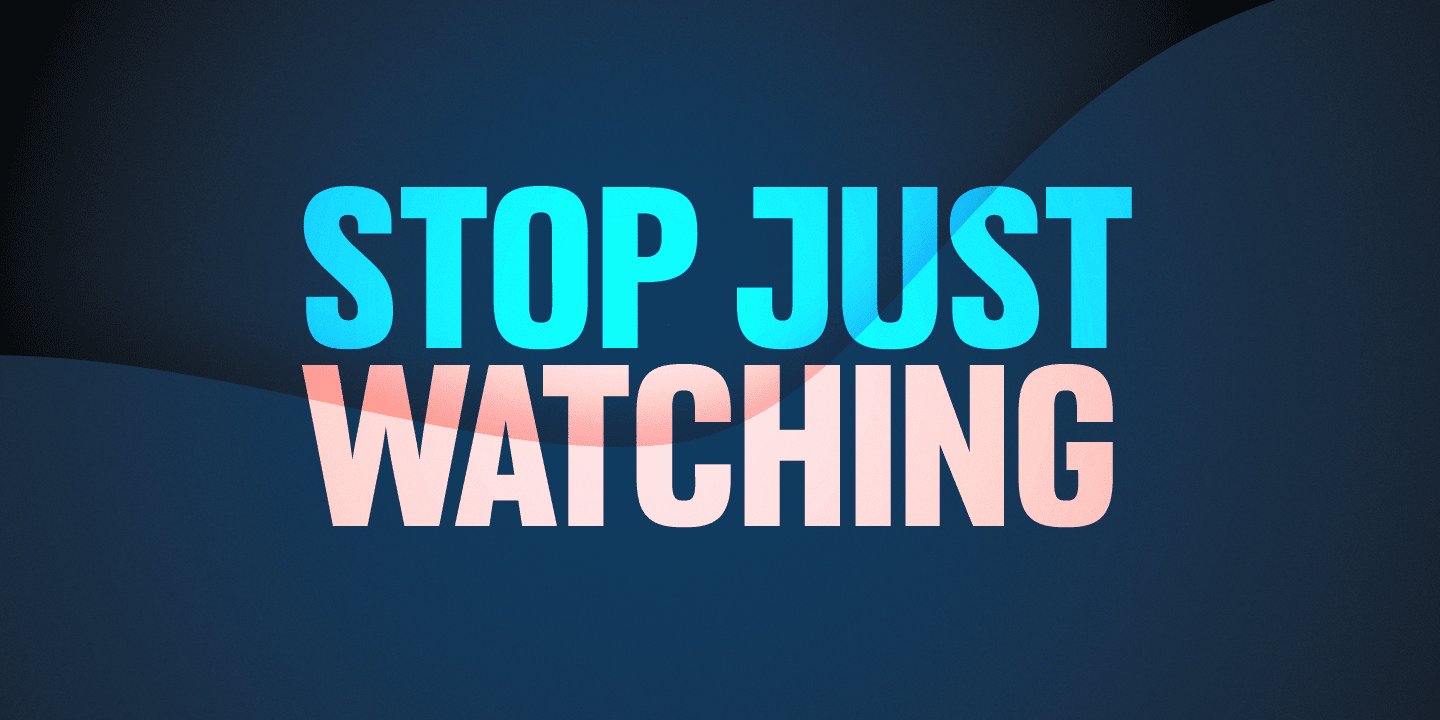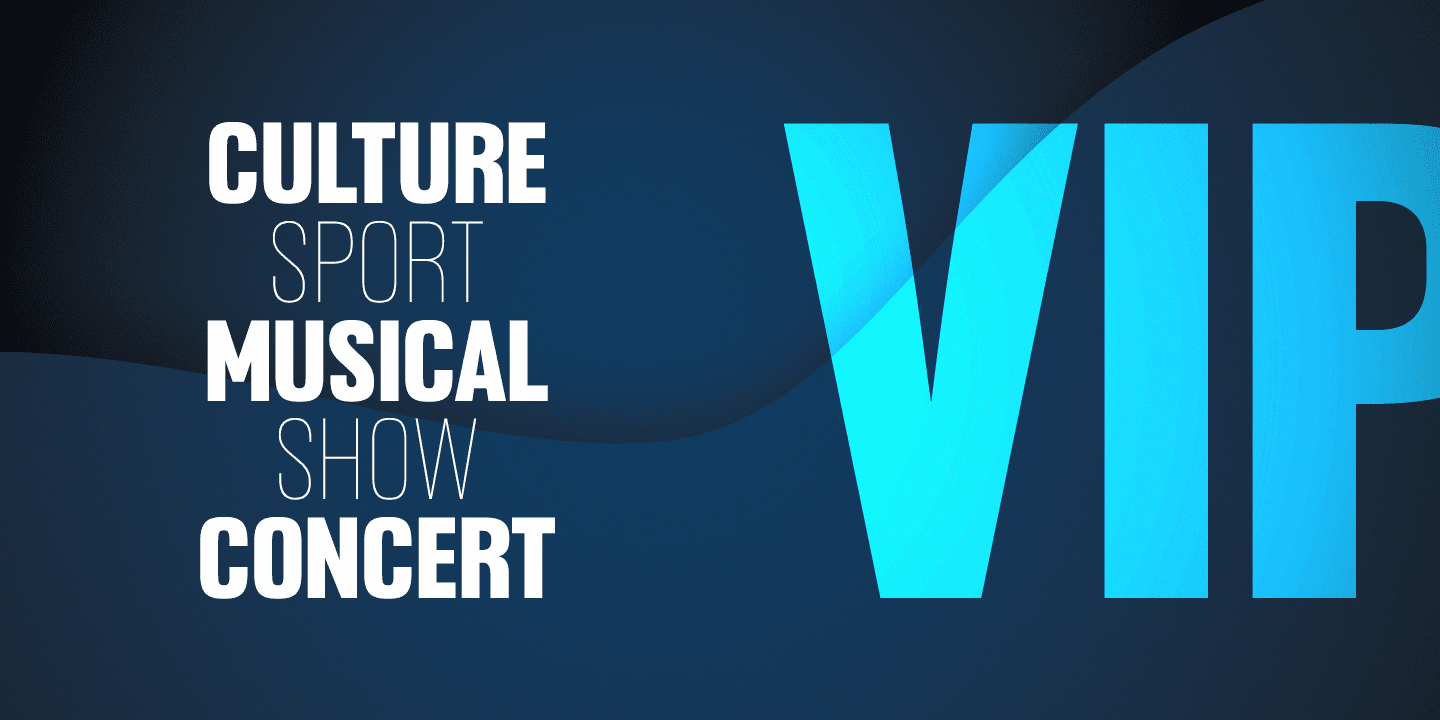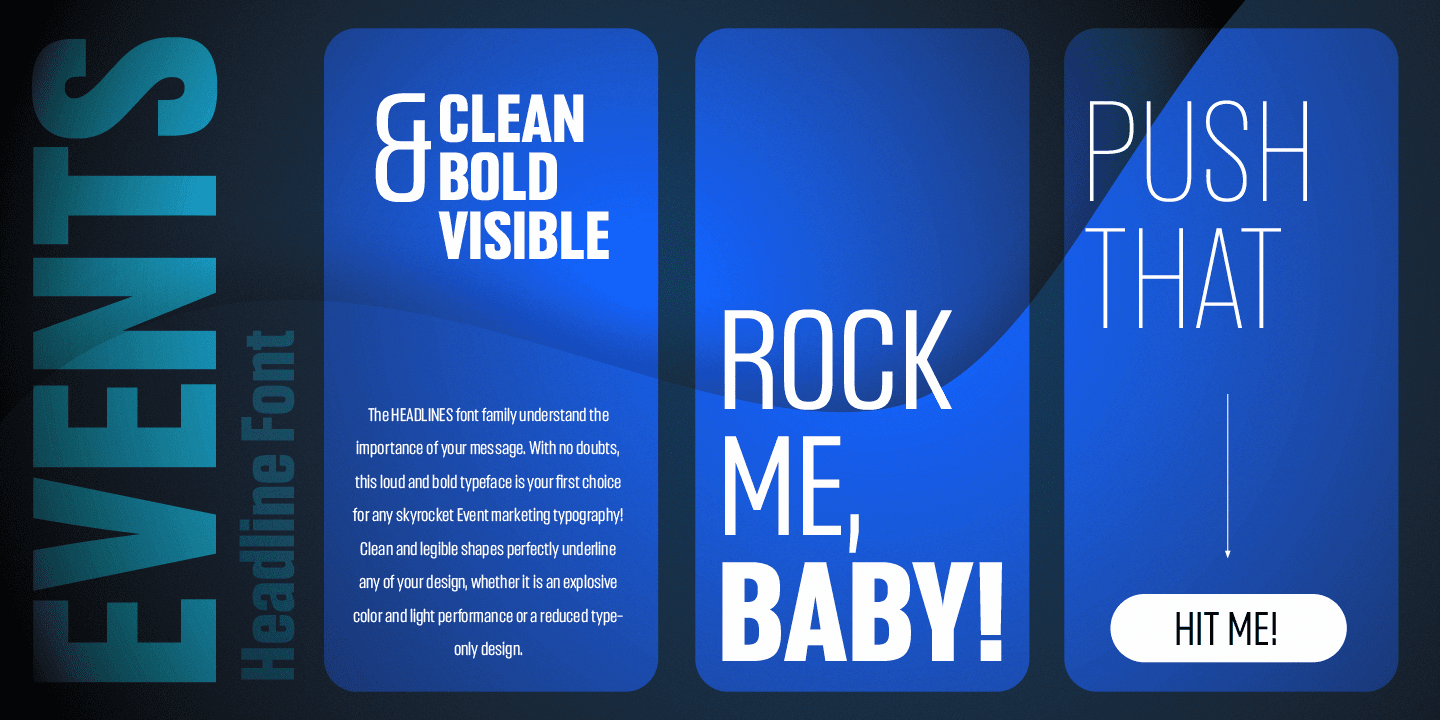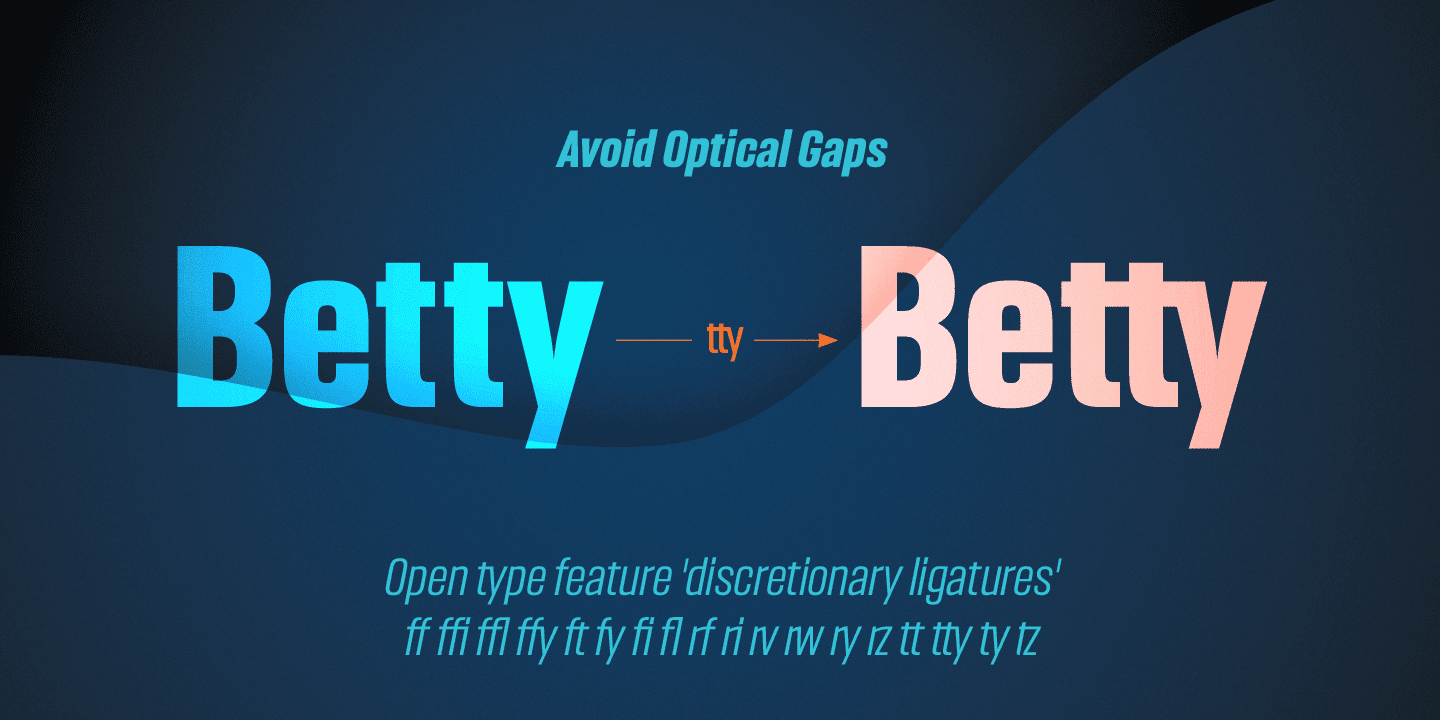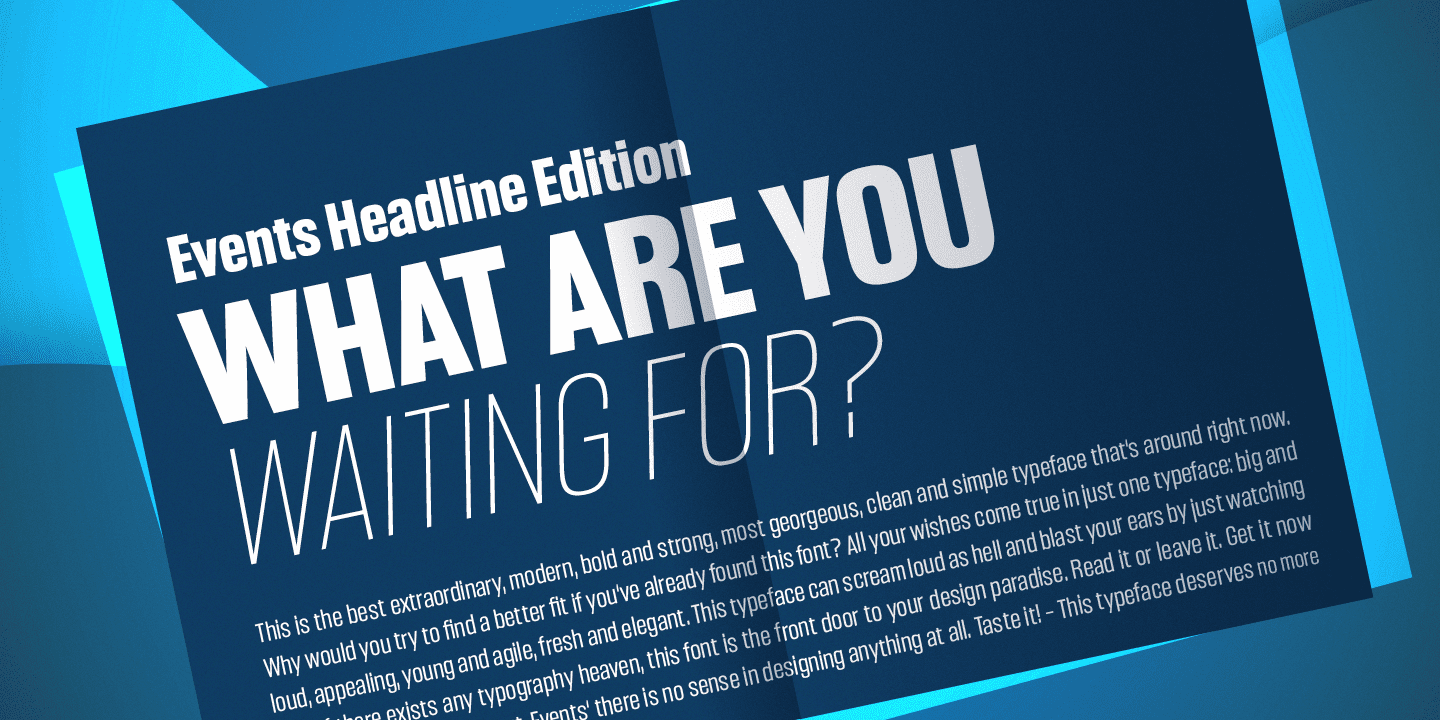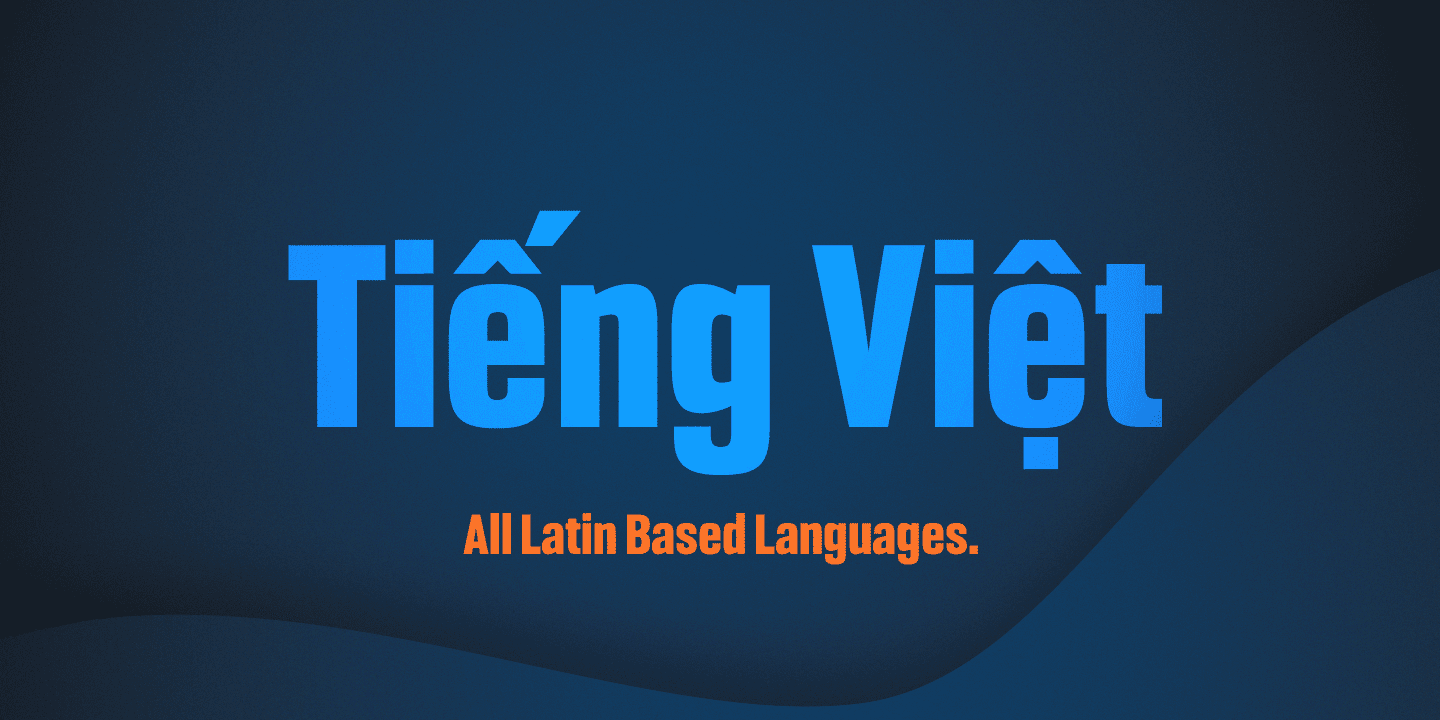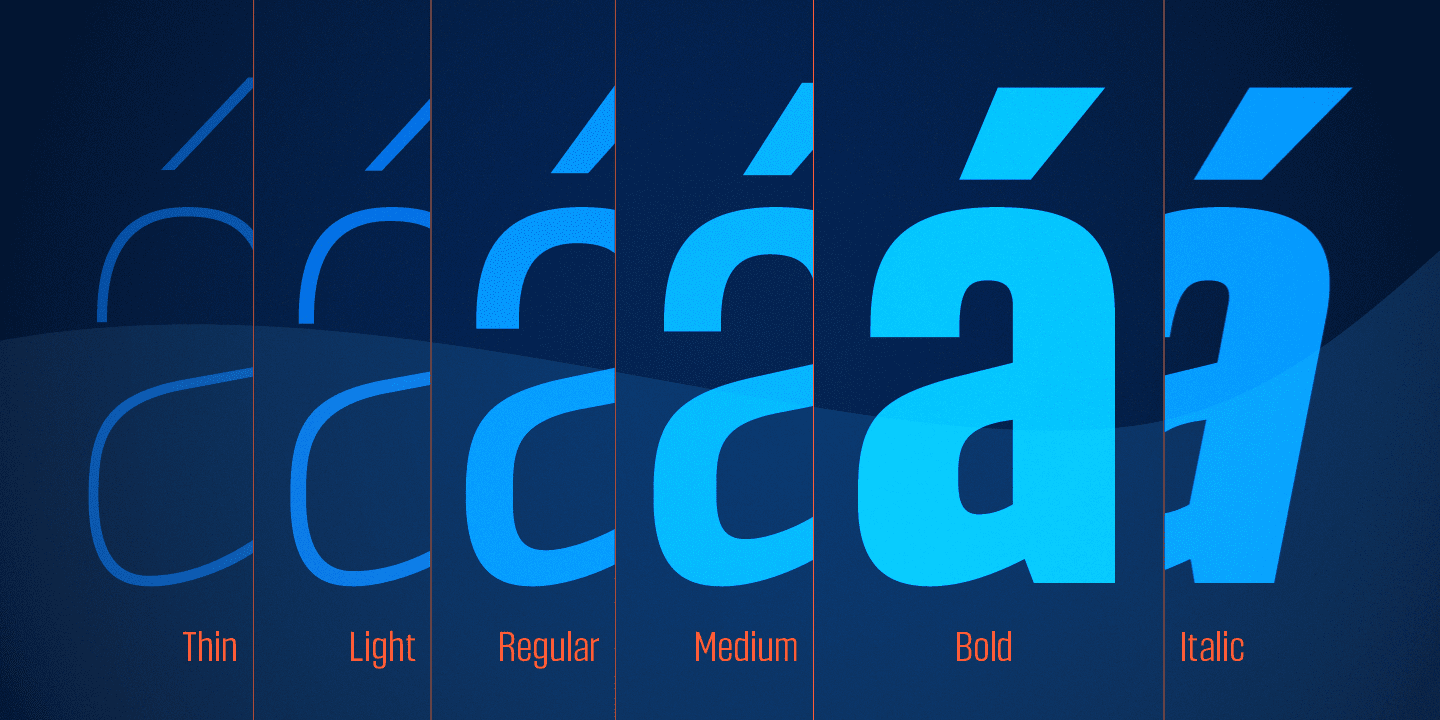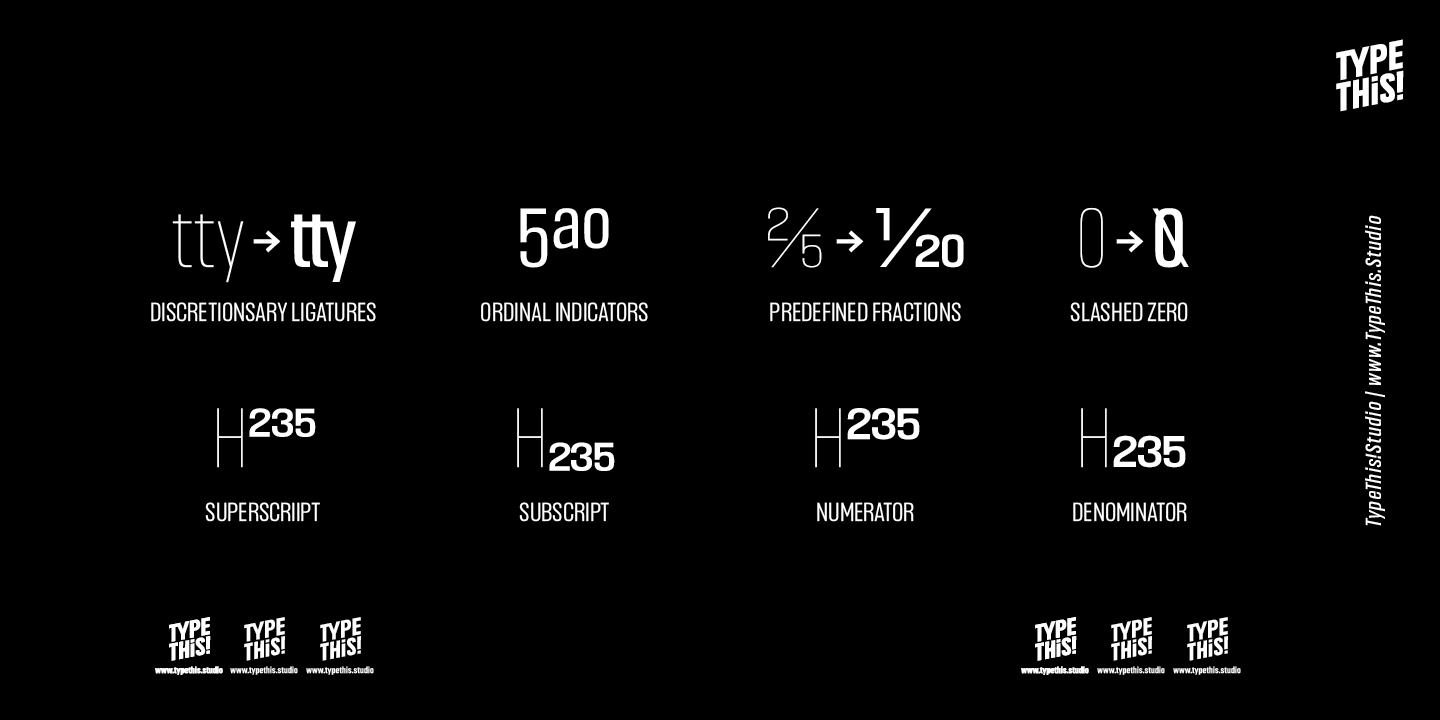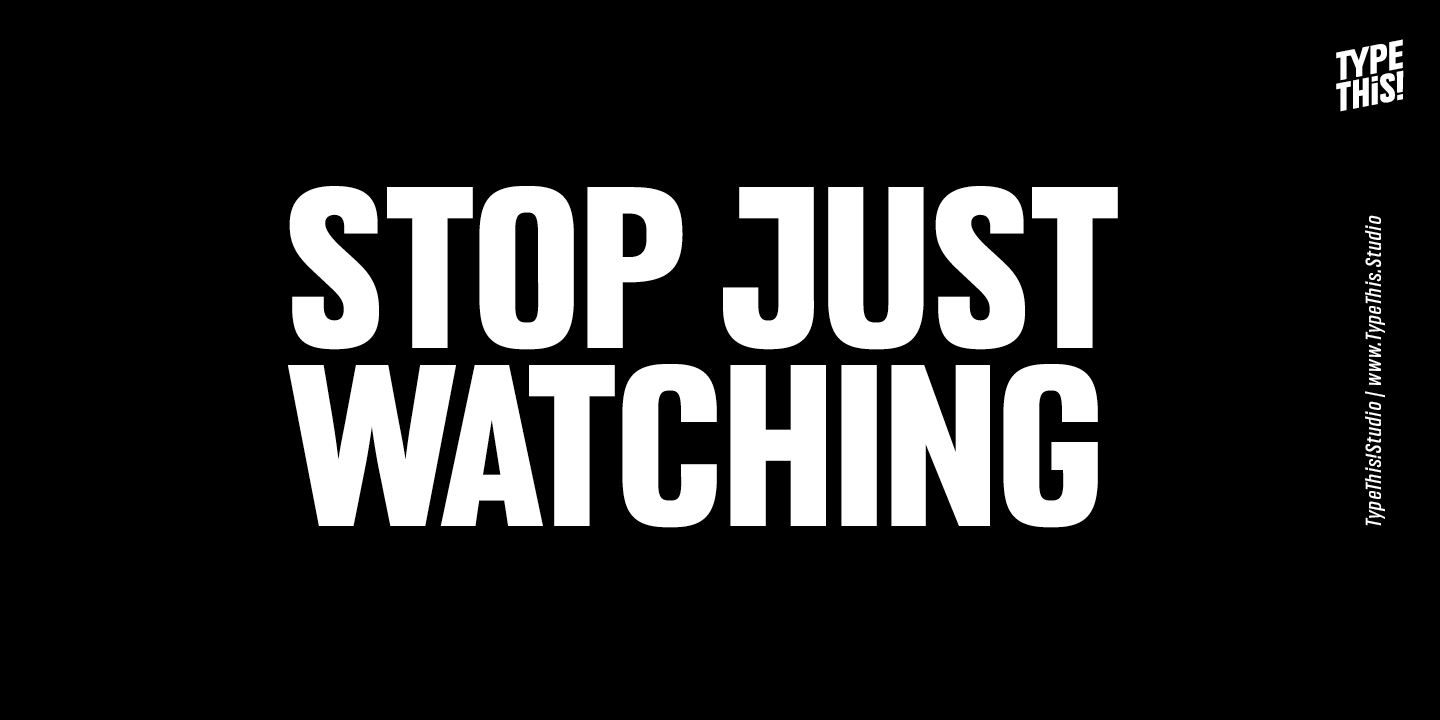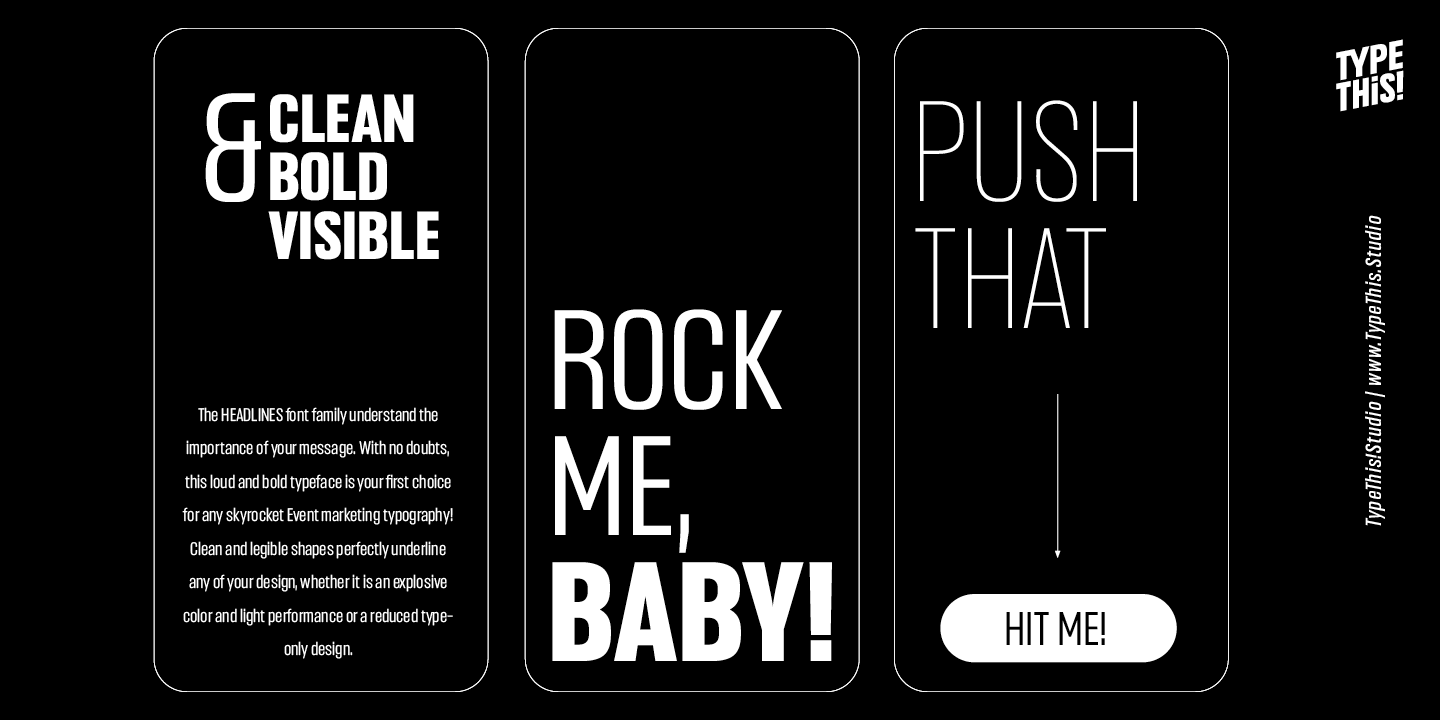
The condensed letters are designed for clear and straight headlines and also allow longer words and headlines to find the space they need for a well-composed headline. The exciting plus of this font are its discretionary ligatures. The Headlines font family contains a number of special ligatures for certain combinations to fill common visual gaps such as tty, rv and many more.
Type perfect headlines — now and forever!